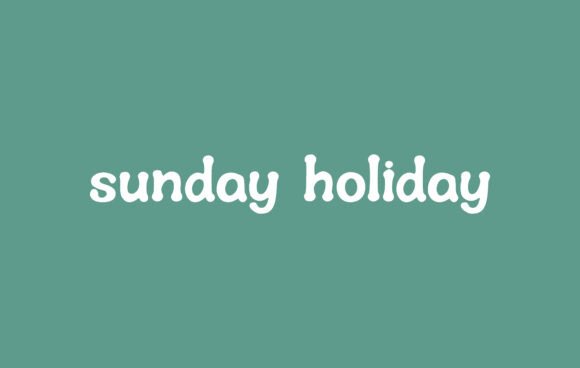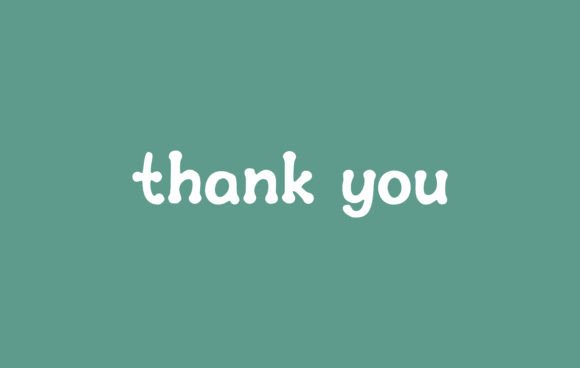
Introduction to Lonestar Bold Font
Have you ever stared at a blank page, feeling the pressure to create something truly special, only to be struck by the perfect idea? For designers, those moments are what make all the hard work worth it. And when you need a font that can elevate your creative project from good to great, you need a font that’s not just visually appealing, but also conveys the emotion and personality you’re trying to convey.
Enter the Lonestar Bold Font, an authentic handwritten font with a romantic touch that’s sure to capture the hearts of your audience. With its legibility and versatility, this font is a design resource that’s perfect for anything from magazine headlines to social media posts, and even wedding invitations and cards. Whether you’re working on a high-quality branding project or just need a font to make your design stand out, the Lonestar Bold Font is a valuable addition to your design toolkit.
Key Features of Lonestar Bold Font
- High-quality, professional font ideal for creative projects and designs
- Unique, bold design perfect for adding a touch of sophistication to any creative project
Honest Review: Lonestar Bold Font
As a designer, I’m always on the lookout for high-quality design resources that can elevate my creative projects. Recently, I stumbled upon the Lonestar Bold Font, and I’m excited to share my honest review with you.
What works well: ✨ The Lonestar Bold Font is a fantastic addition to any design library. Its bold, modern look is perfect for headlines and titles, and its clean lines make it easy to read. I love that it’s available as a free download, making it an excellent resource for designers on a budget. The font also supports a transparent background, which is a huge plus for designers who need to create graphics with a transparent overlay.
- High-quality font that’s perfect for bold headlines
- Supports transparent background, ideal for graphics with overlays
Limitations: ⚠️ One potential drawback is that the font is only available in a single weight, which may limit its versatility for certain design projects. Additionally, some users may find the font’s boldness too overpowering for certain applications.
Overall, I’m impressed with the Lonestar Bold Font, and I think it’s a great addition to any design library. While it may have some limitations, its high-quality design and free download make it a valuable resource for designers.
Tips for Getting the Most Out of Lonestar Bold Font
For optimal results, use Lonestar Bold Font with a transparent background to create a striking visual effect. Experiment with different font sizes and combinations to achieve the desired design.
Lonestar Bold Font is ideal for creating eye-catching titles, headings, and logos. It’s also a great design resource for creating high-quality graphics, such as social media graphics, posters, and flyers.